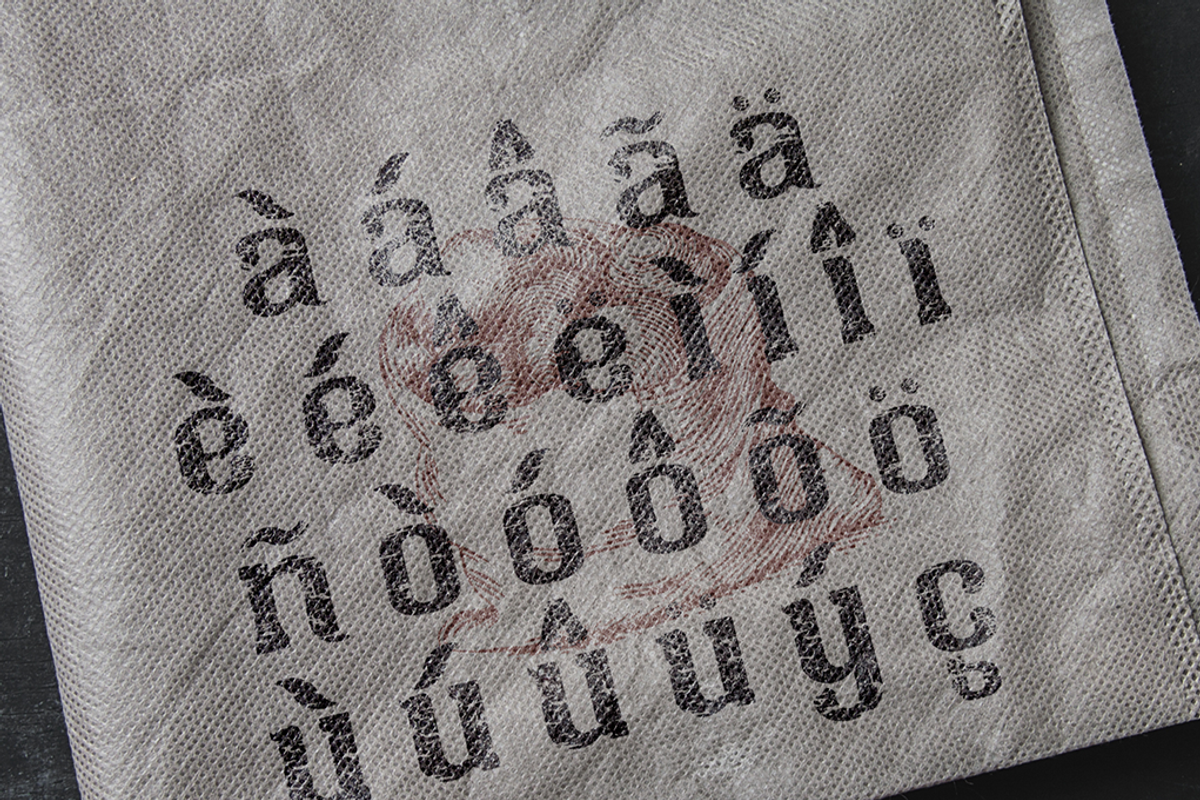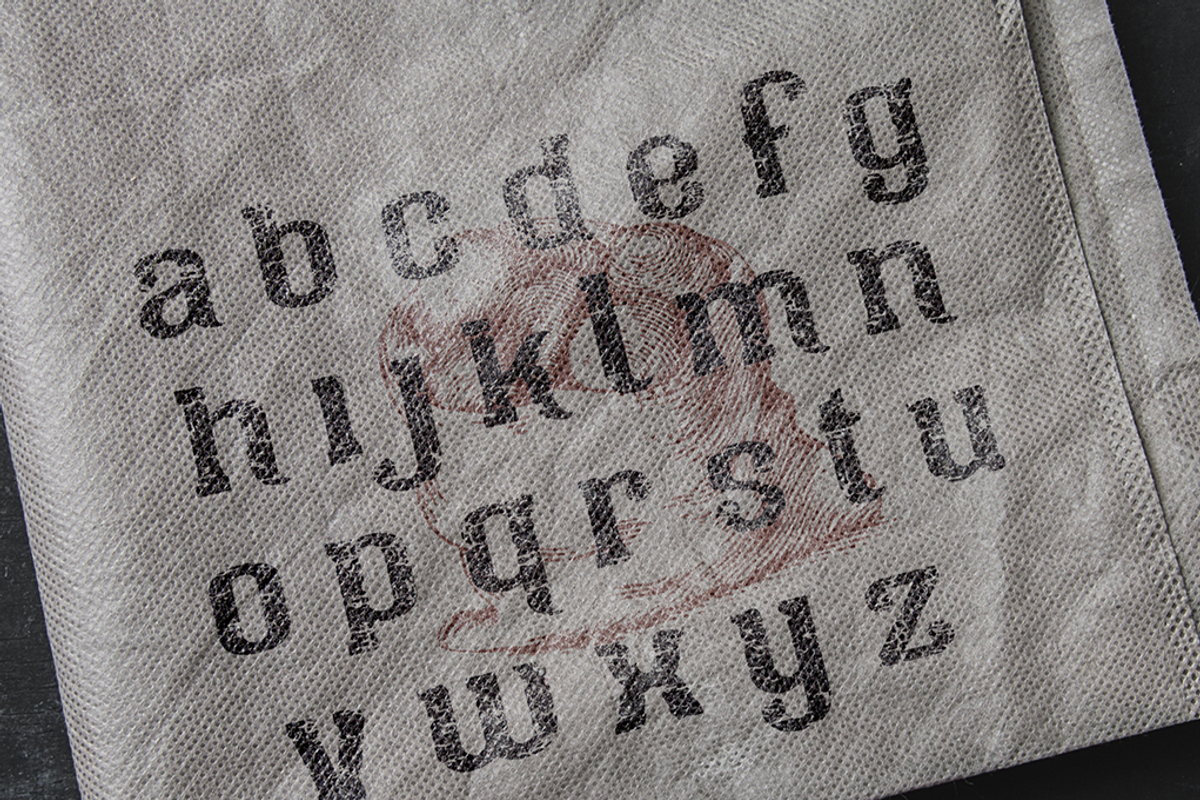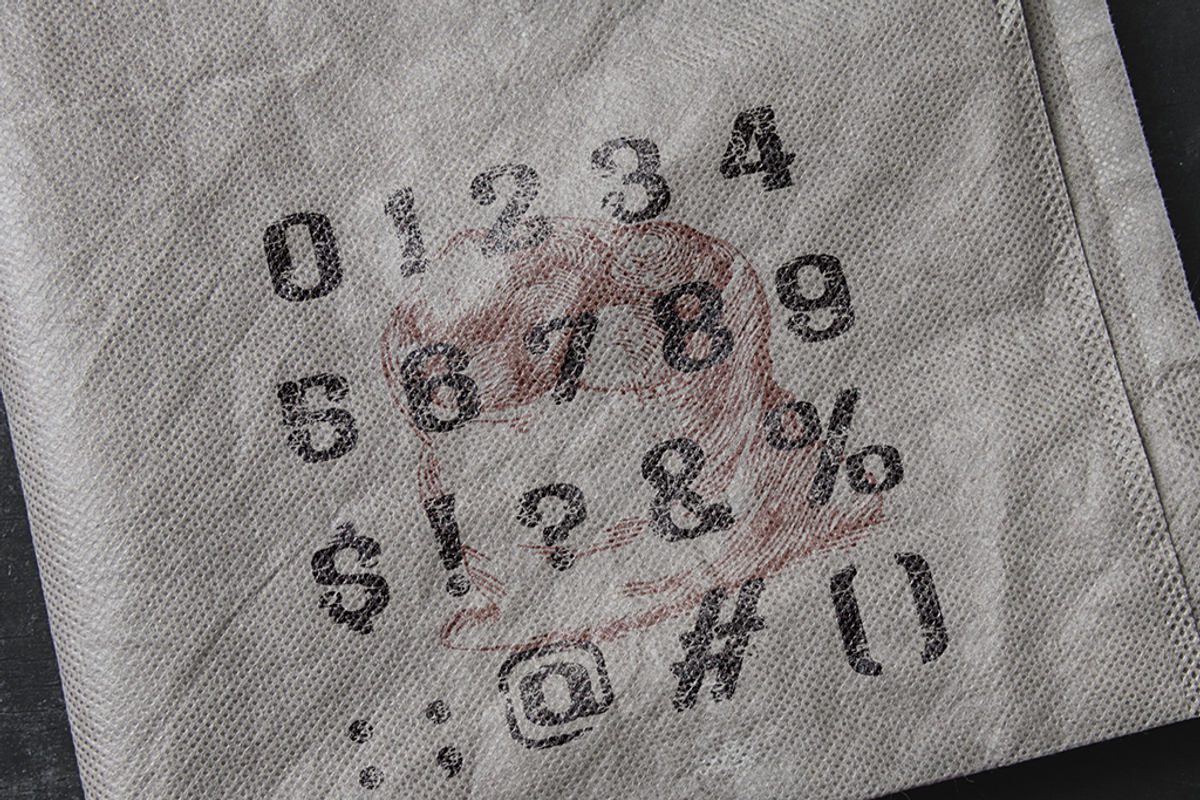
Four Potato Farm Font
Four Potato Farm Font by Alphabet Agency is a font selected for branding, posters, packaging, typography.
Why Four Potato Farm Font is worth a look
Four Potato Farm Font by Alphabet Agency fits naturally into Branding, posters, packaging, typography.